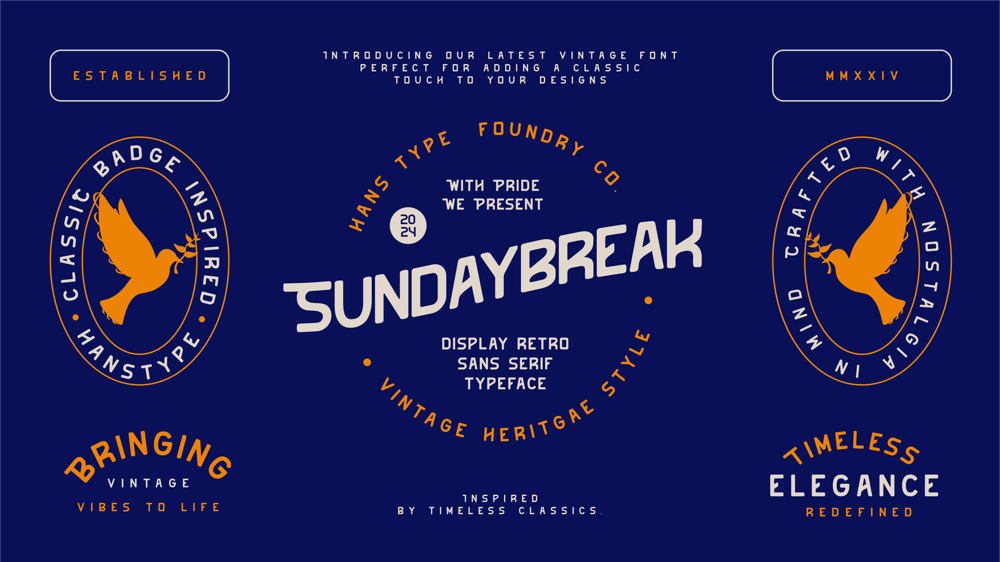
Sundaybreak
Sundaybreak font
Sundaybreak Font Family was designed by published by Hanstype. Sundaybreak contains 1 styles and family package options. An elegant hand-drawn retro font, designed to add a classic and nostalgic touch to your designs. With its unique vintage style and distinctive characteristics, this font is suitable for a variety of projects, from graphic design to digital. Ideal for both print and digital applications, this font excels in adding personality to headlines, product labels, and advertisements. Its versatility ensures it works beautifully across a range of mediums, from retro-themed designs to more contemporary projects seeking a hint of vintage flair. Whether you’re working on a creative portfolio or a special event invitation, this font’s balanced combination of elegance and nostalgia will make your designs stand out with its timeless appeal.